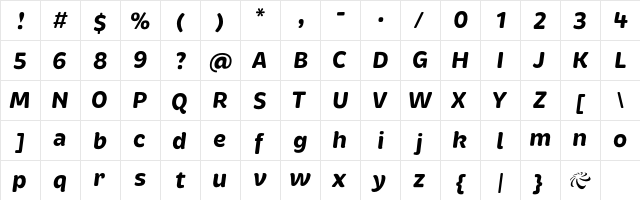
Brevia BoldItalic Regular
Design Context for Brevia BoldItalic Typeface
Brevia BoldItalic offers clean, dependable letterforms without strong stylistic allegiance, making it a practical choice for designers who need flexibility. The dynamic lean of this cut emphasises speed and emphasis in any layout. The heavy weight commands attention and anchors typographic hierarchies.
Pro Tip: Try Brevia BoldItalic for annotation and caption copy alongside an upright companion — the contrast in angle creates a dynamic but ordered typographic system.